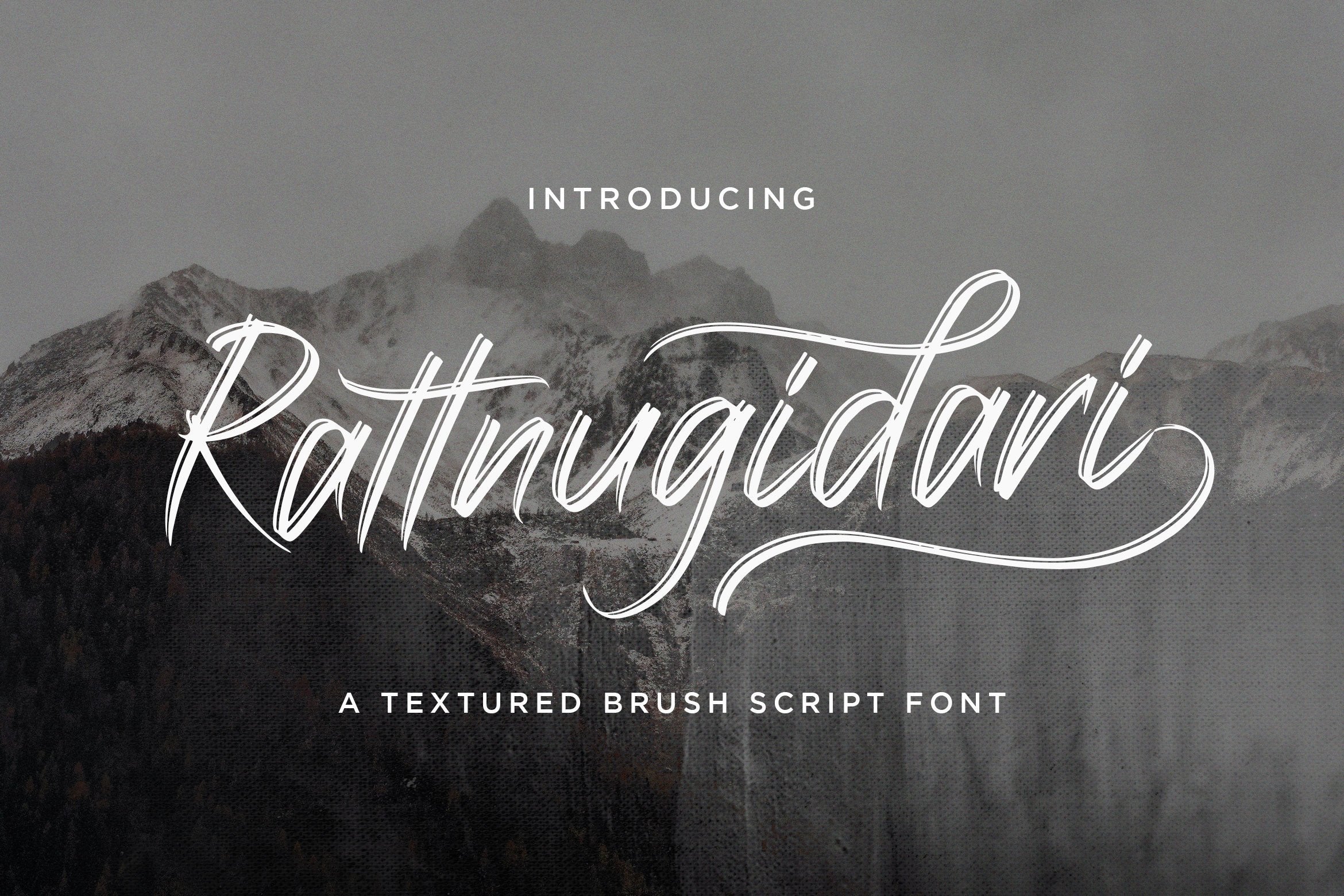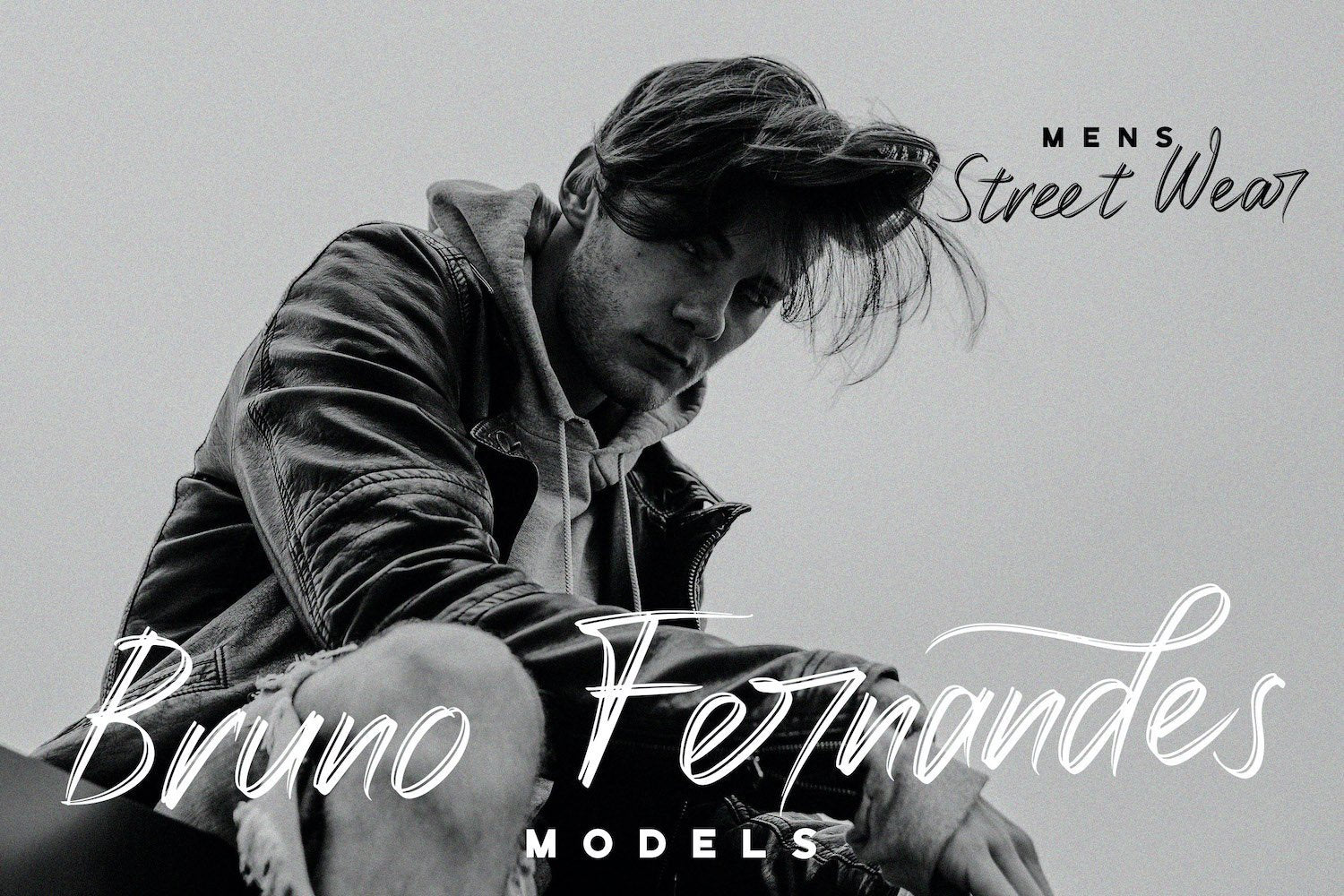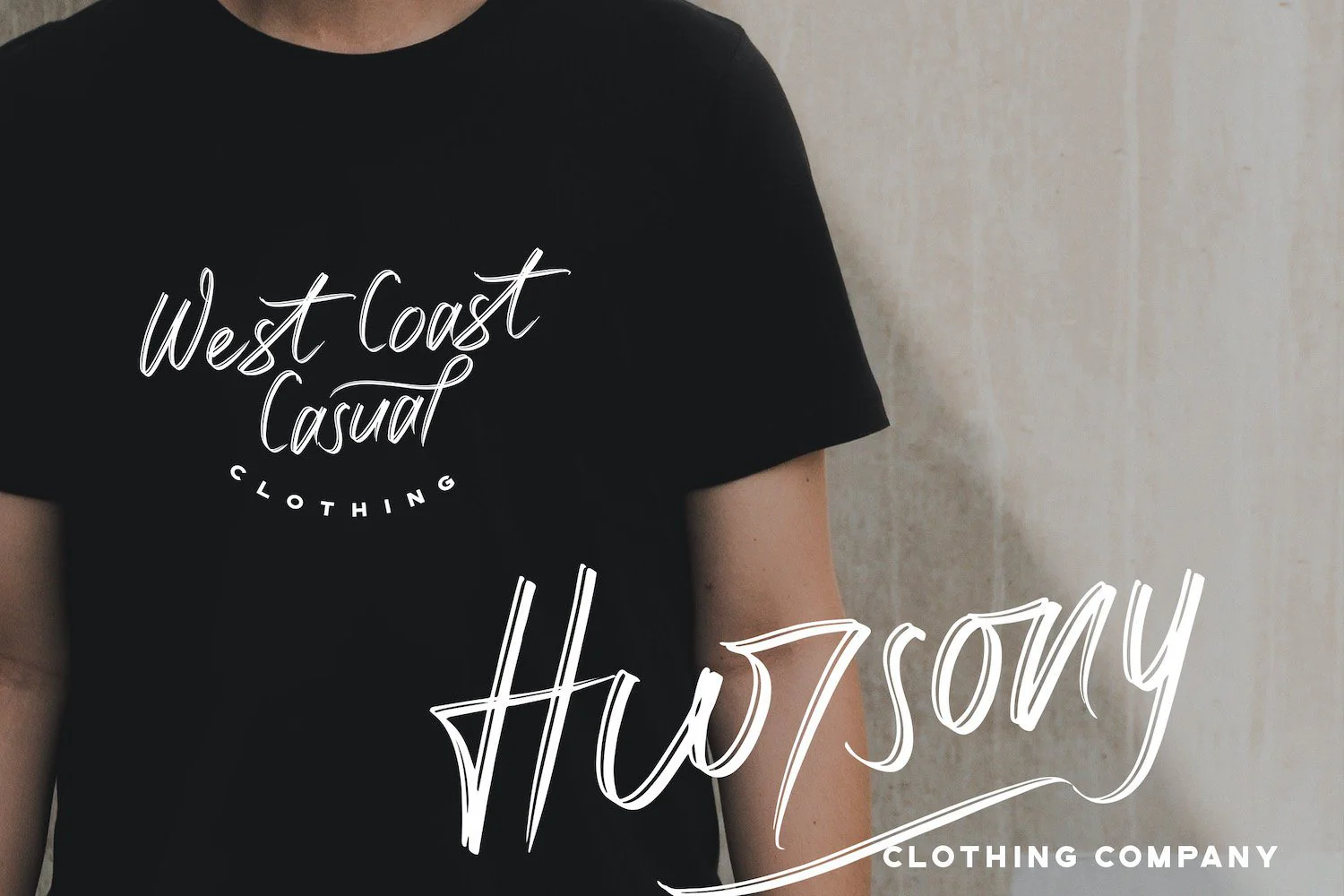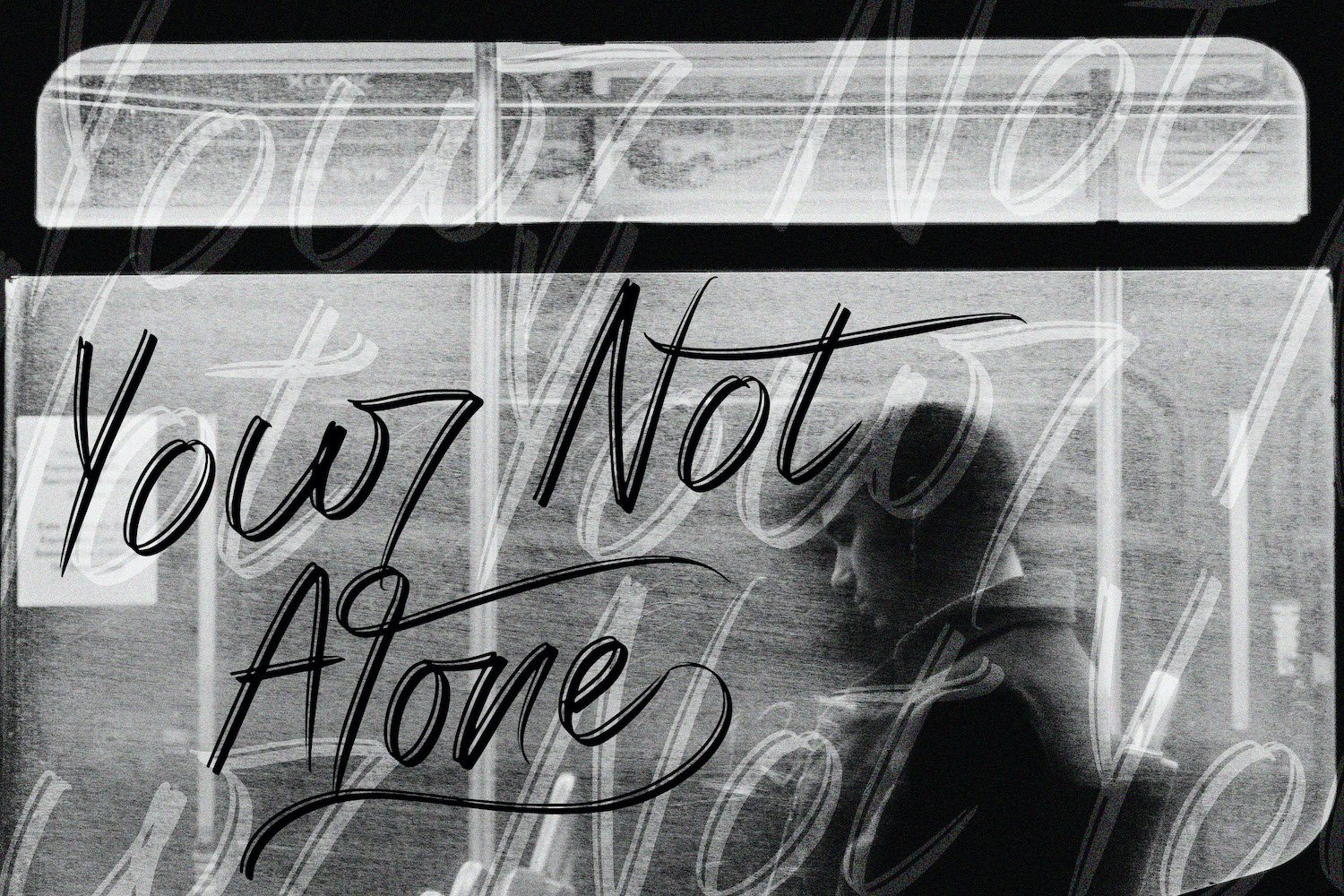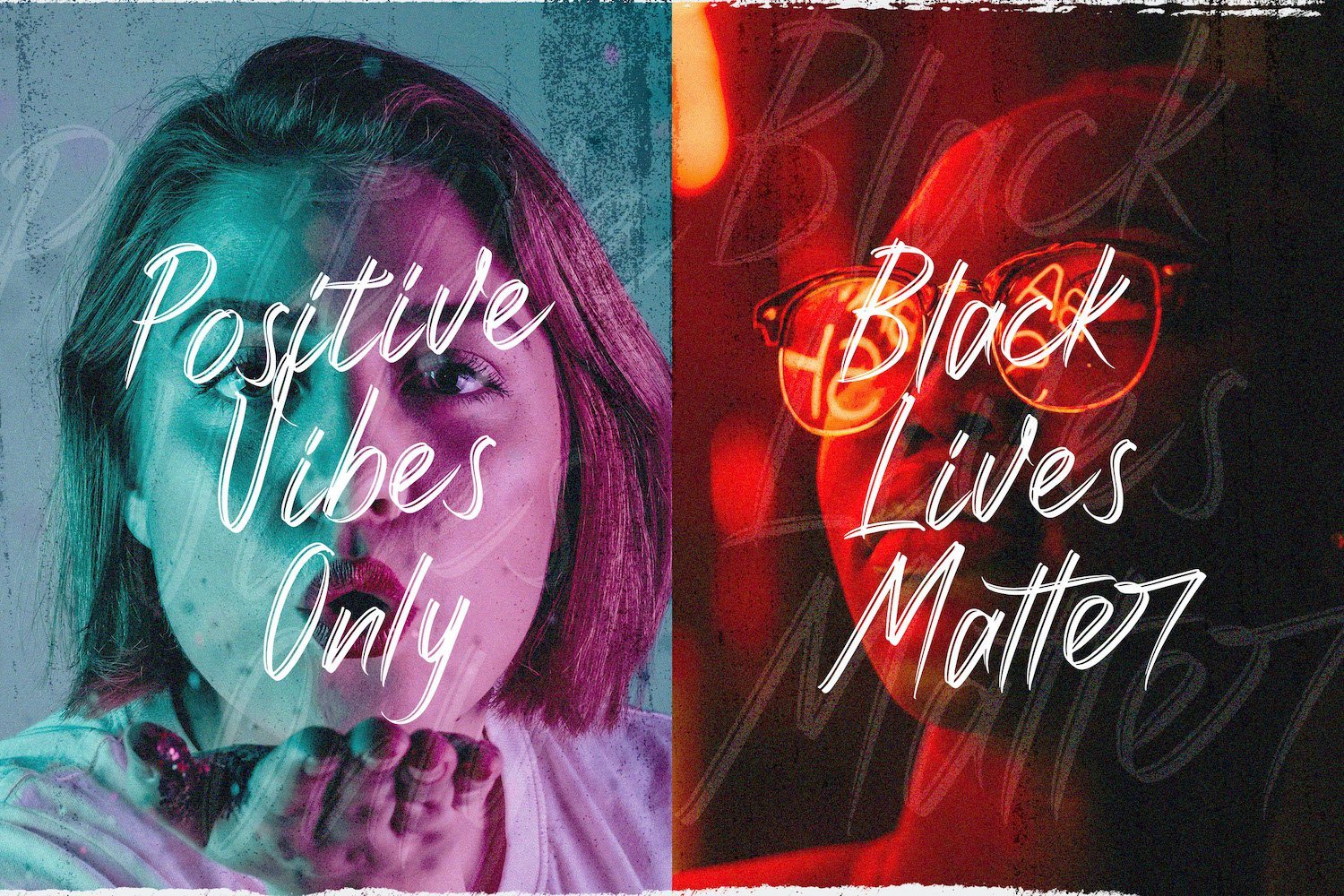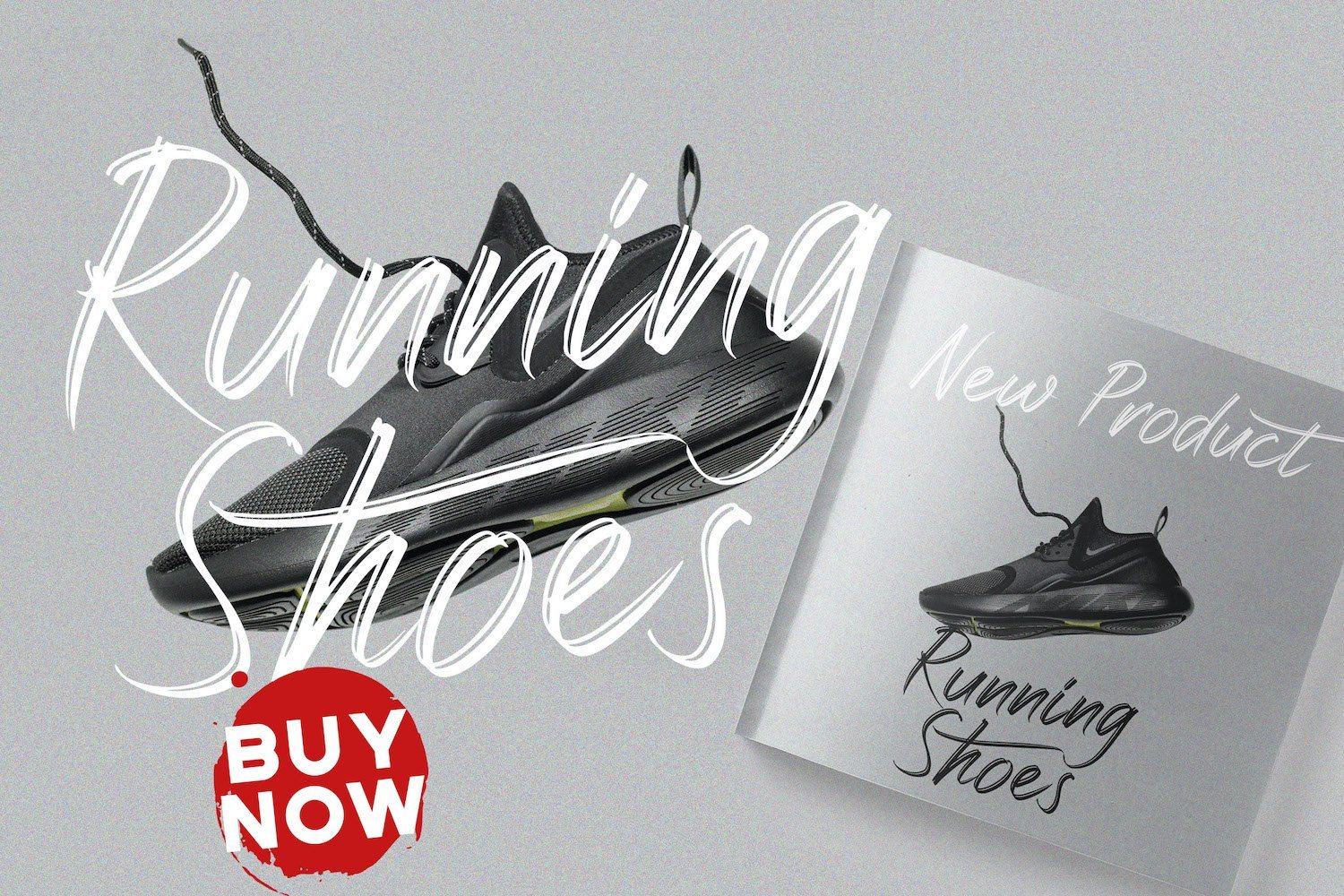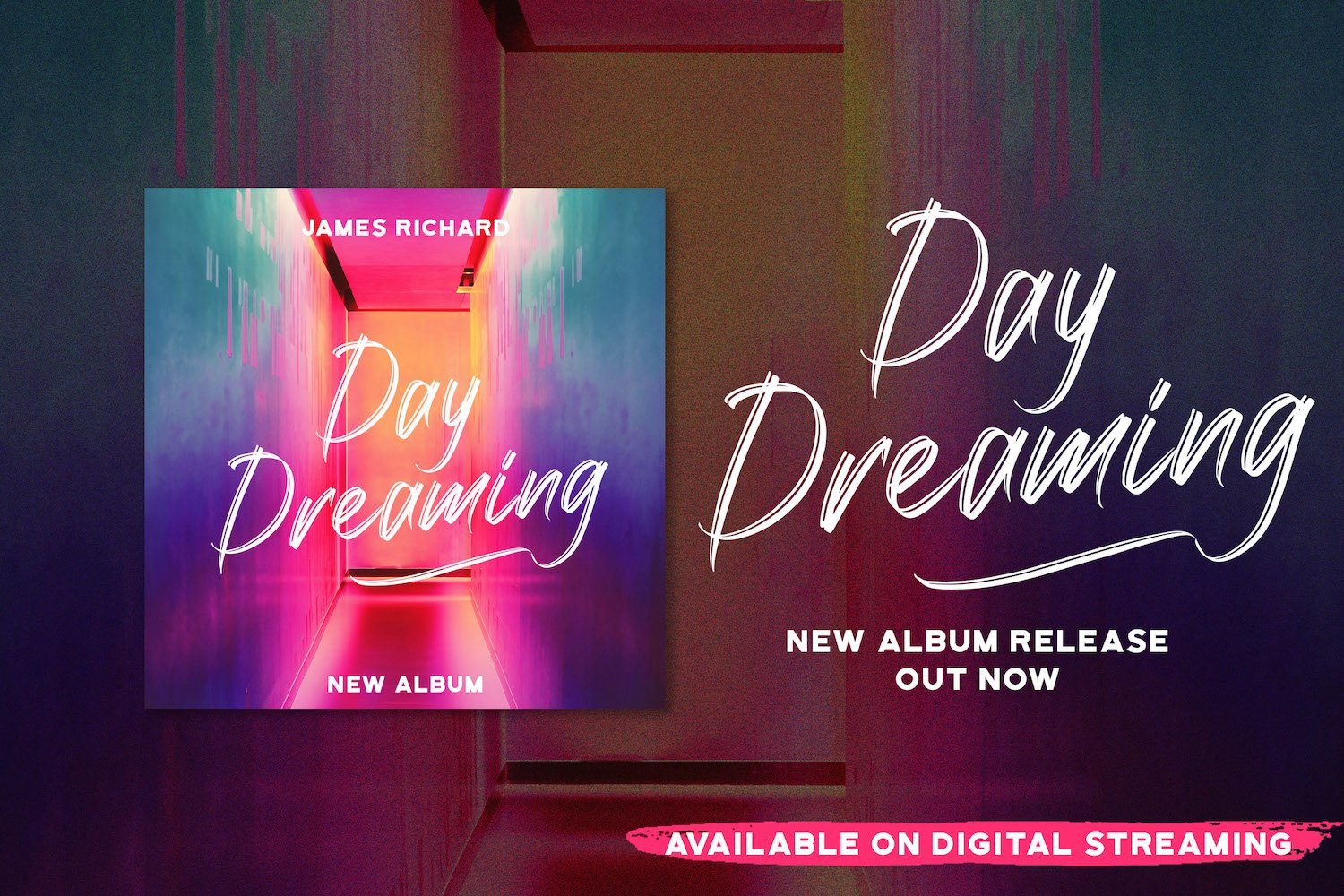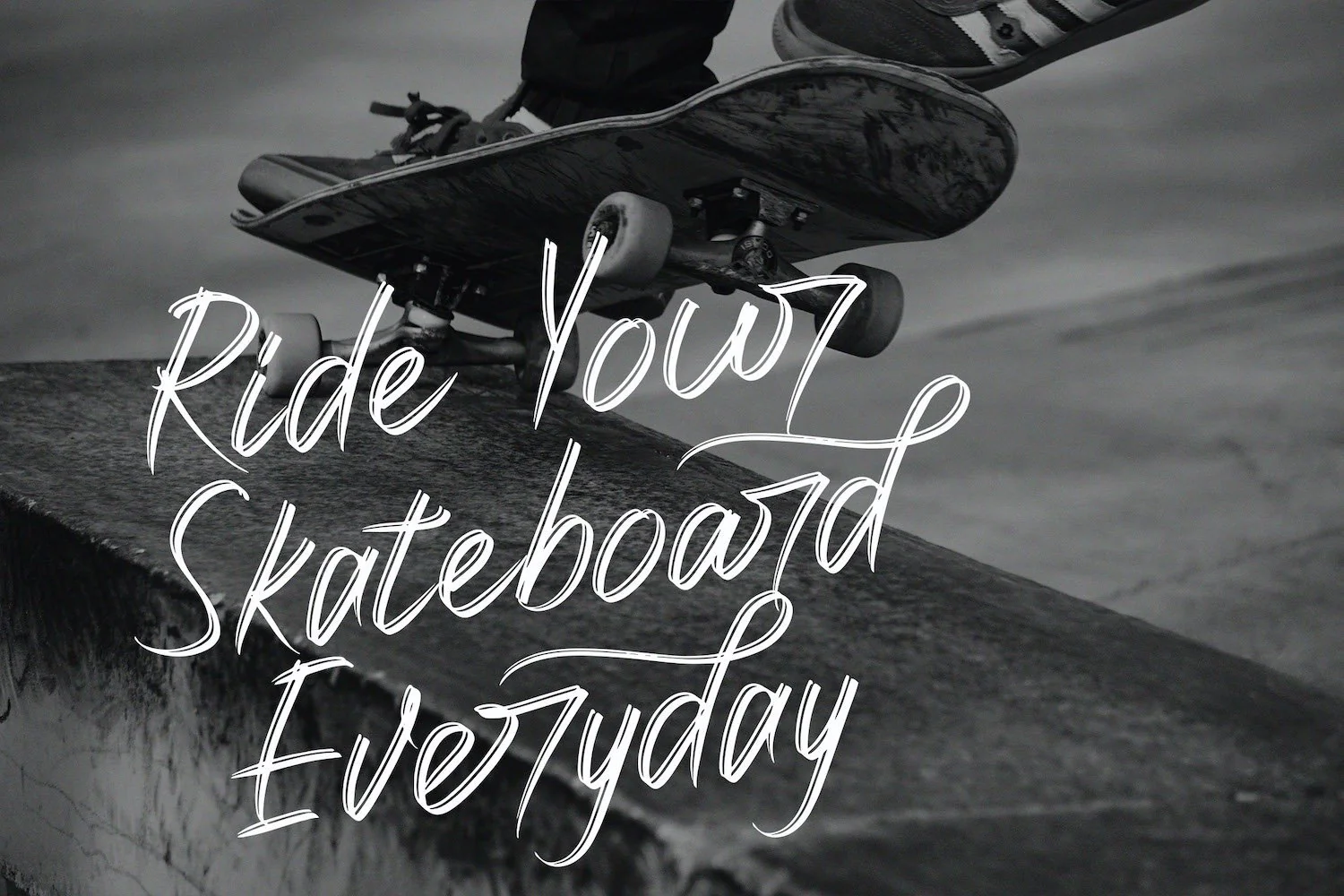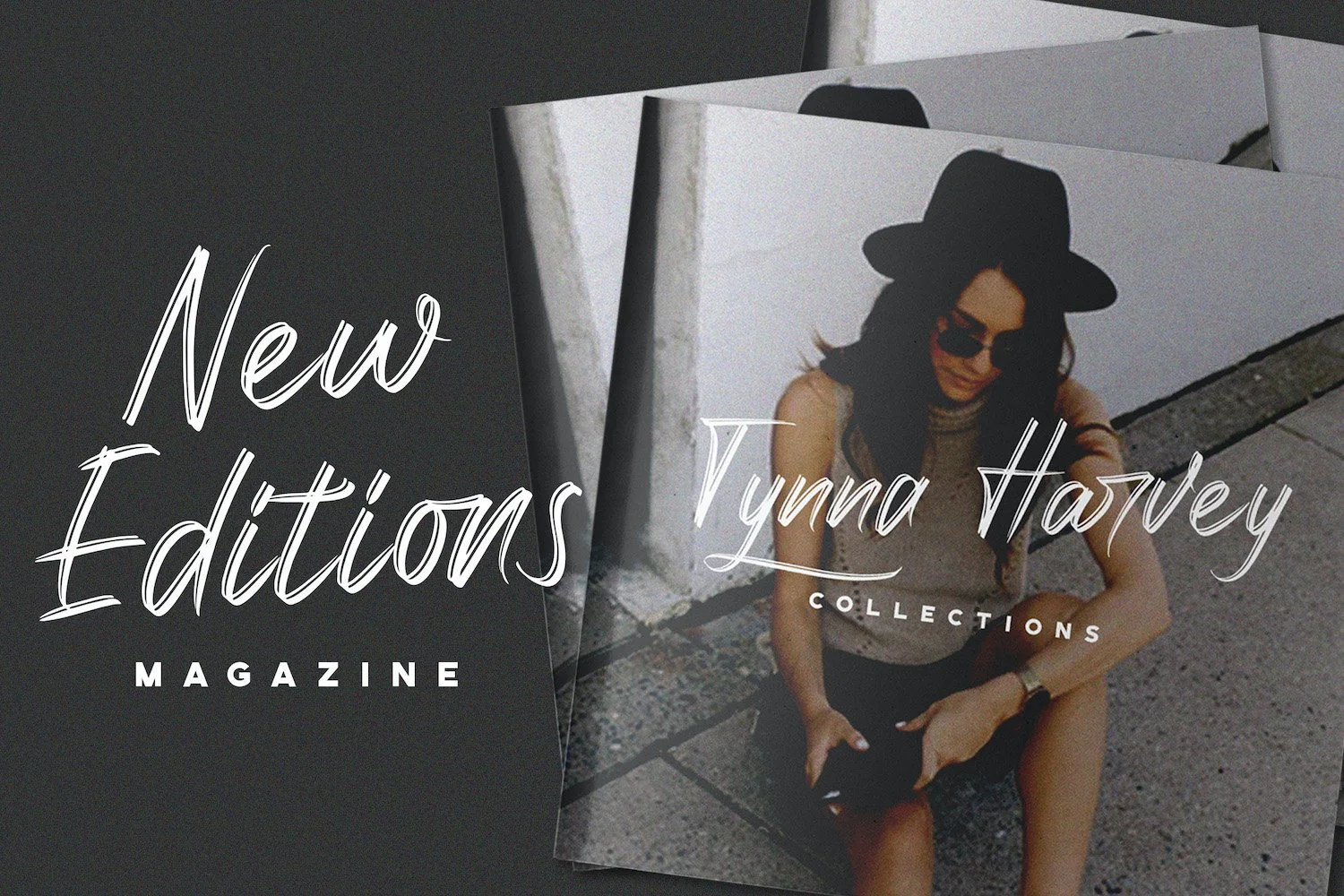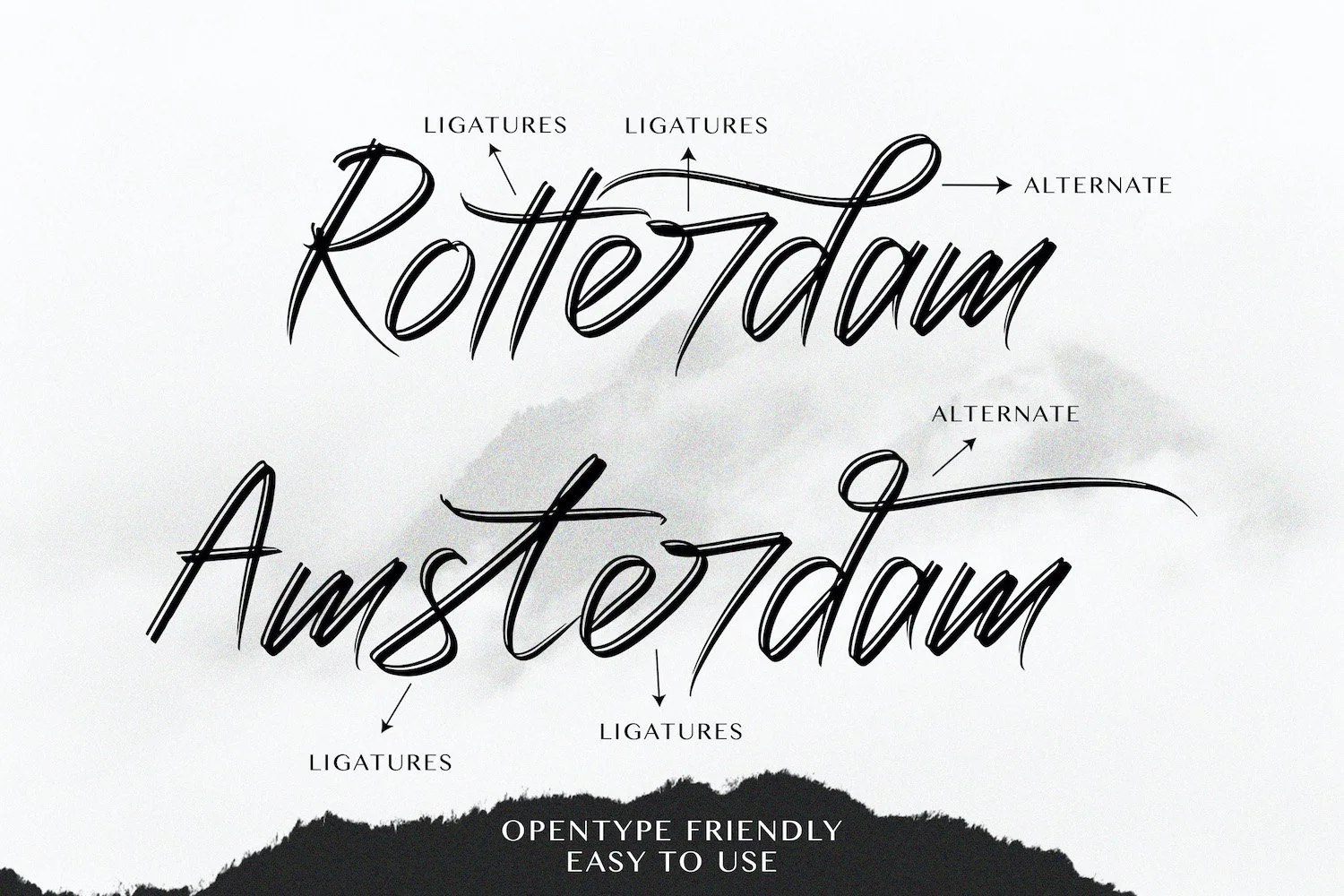
Rattnugidari - Brush Script Font
Introducing Rattnugidari - Brush Script Font
Rattnugidari is a stylish and incredibly elegant script font. It looks stunning on wedding invitations, thank you cards, quotes, greeting cards, logos, business cards and every other design which needs a handwritten touch. This font is PUA encoded which means you can access all of the glyphs and swashes with ease! It features a varying baseline, smooth lines, gorgeous glyphs and stunning alternates.
Introducing Rattnugidari - Brush Script Font
Rattnugidari is a stylish and incredibly elegant script font. It looks stunning on wedding invitations, thank you cards, quotes, greeting cards, logos, business cards and every other design which needs a handwritten touch. This font is PUA encoded which means you can access all of the glyphs and swashes with ease! It features a varying baseline, smooth lines, gorgeous glyphs and stunning alternates.